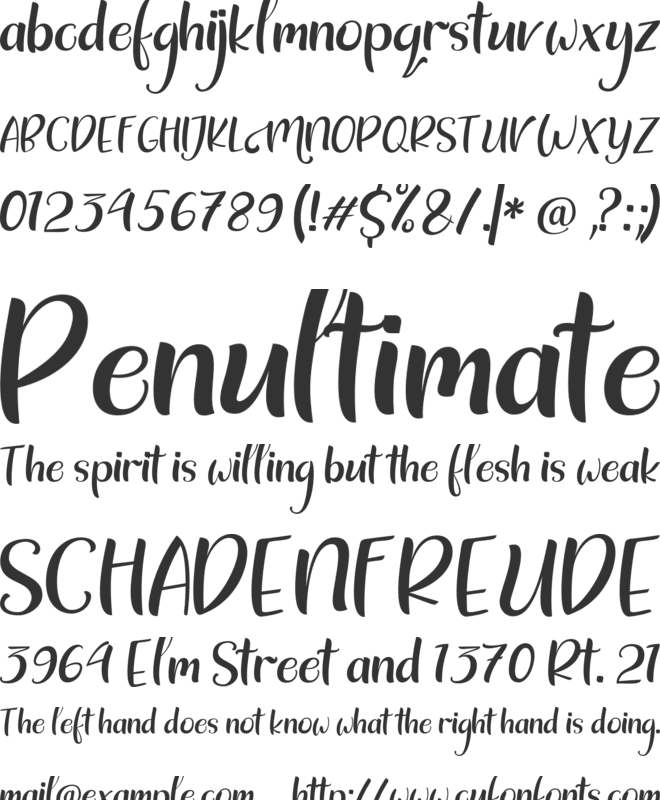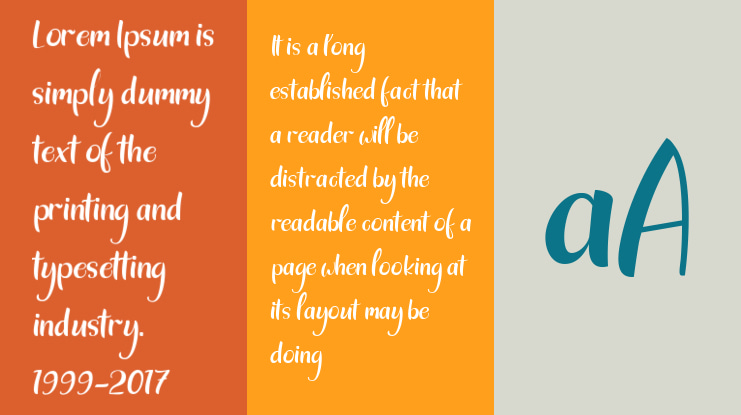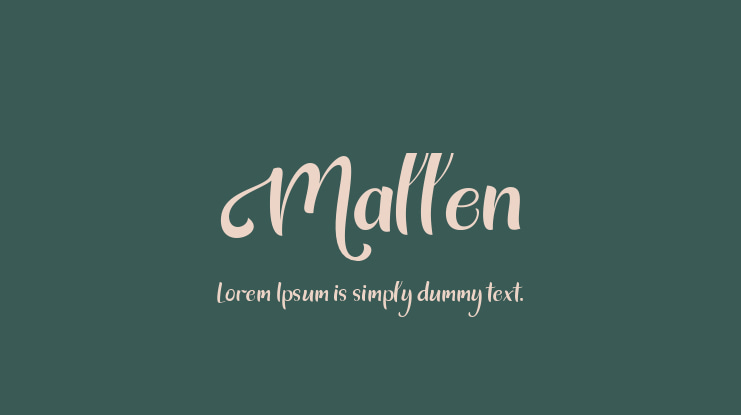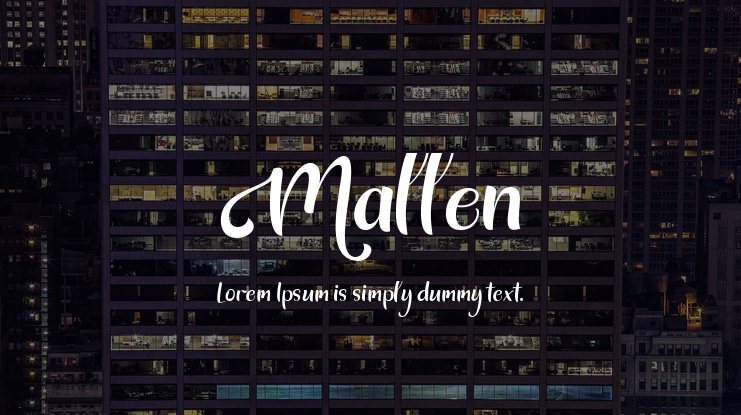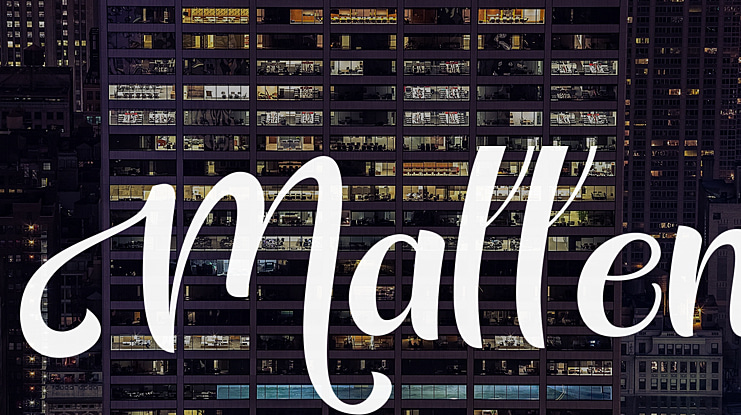
Mallen Font Family
Mallen is a Handwritten Script Font that carries the concept of Tropical and the beauty of the font from each letter, Mallen Font is perfect for printed quotes, wedding invitation cards, social media headlines, product packaging, and more!
Features:
A-Z Character Set
Numerals & Punctuations (OpenType Standard)
Stylistic Alternates
Multilingual